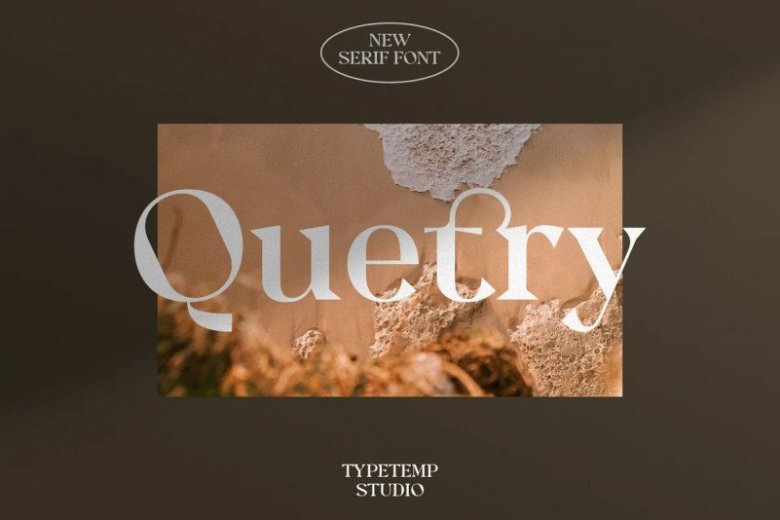
Quetry Font
Quetry Serif Font – an elegant beauty serif display typeface created by Typetemp Studio with alternatives and ligatures that create stunning logos, quotes, posts, blog posts. branding projects, magazine imagery, wedding invitations, and much more.